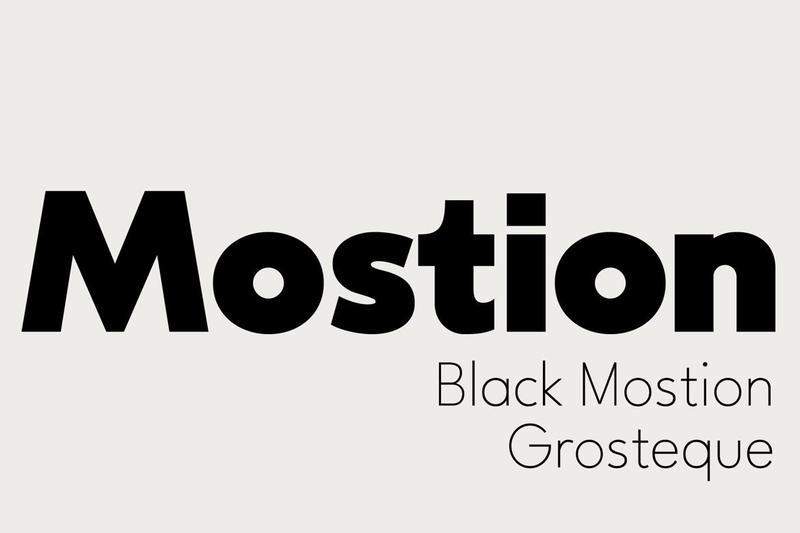
Introducing “ZT Monstion,” a fusion of sans and grotesque styles, both in bold weight, radiating an essence of simplicity and modernism. Crafted meticulously, this typeface embodies the purity of sans-serif aesthetics while embracing the boldness of grotesque forms. Its carefully refined x-height and expertly smoothed angles create a mesmerizing balance, where minimalistic design meets commanding boldness. With each character empowered by the weighty black typography,
ZT Monstion opens a window to a bright future, delivering your message with unwavering clarity and a touch of human charm. Perfect for projects that demand simplicity with a contemporary edge, from striking headlines to sleek product presentations, ZT Monstion stands ready to amplify your message, inviting you to join an elegant yet resolute typographic revolution.